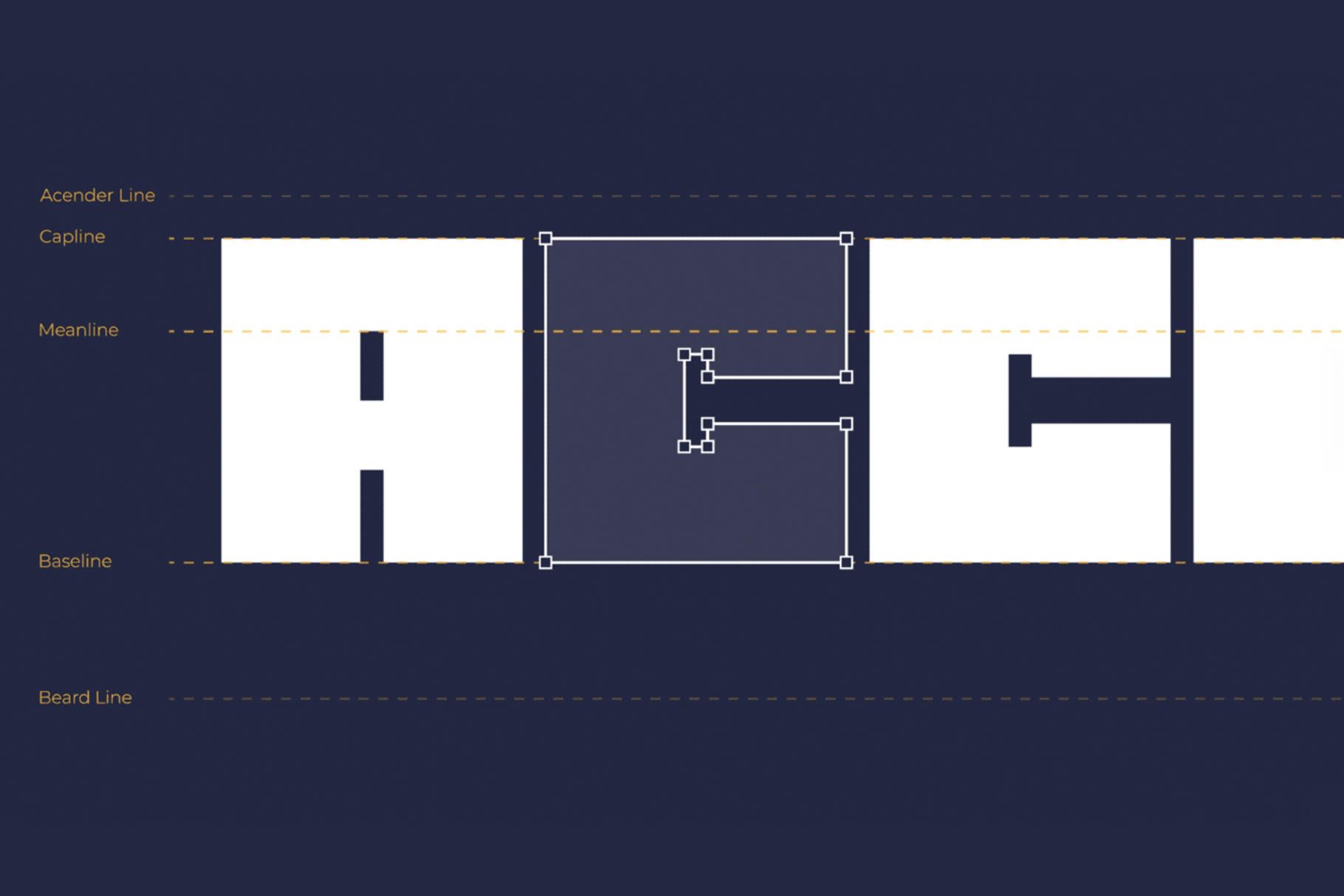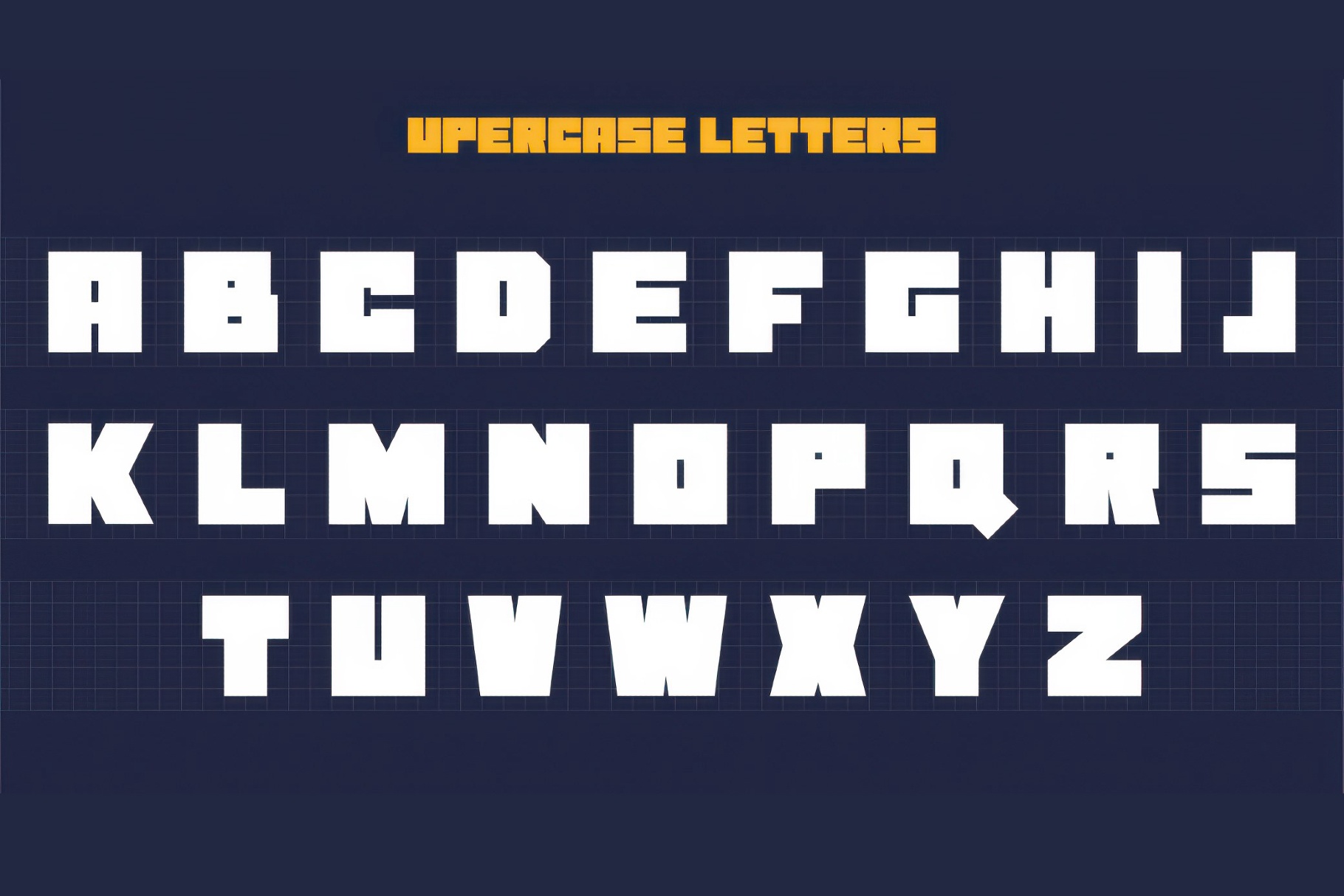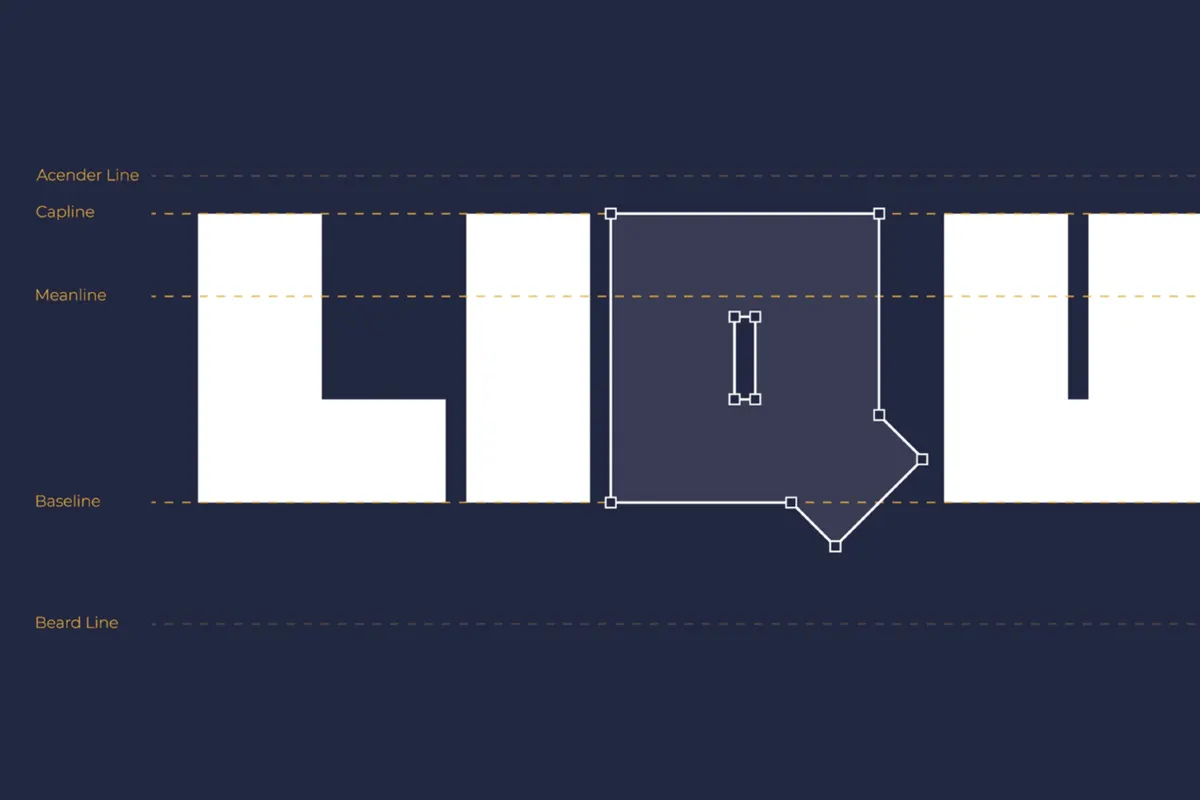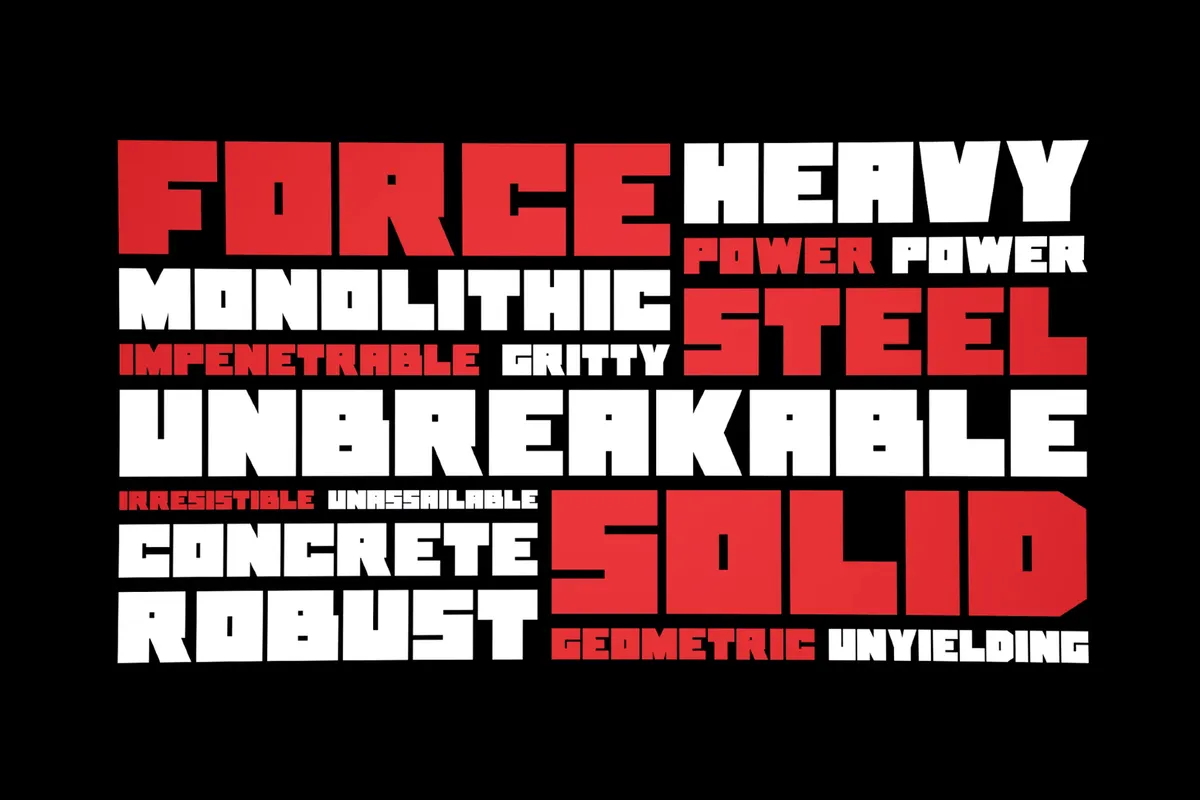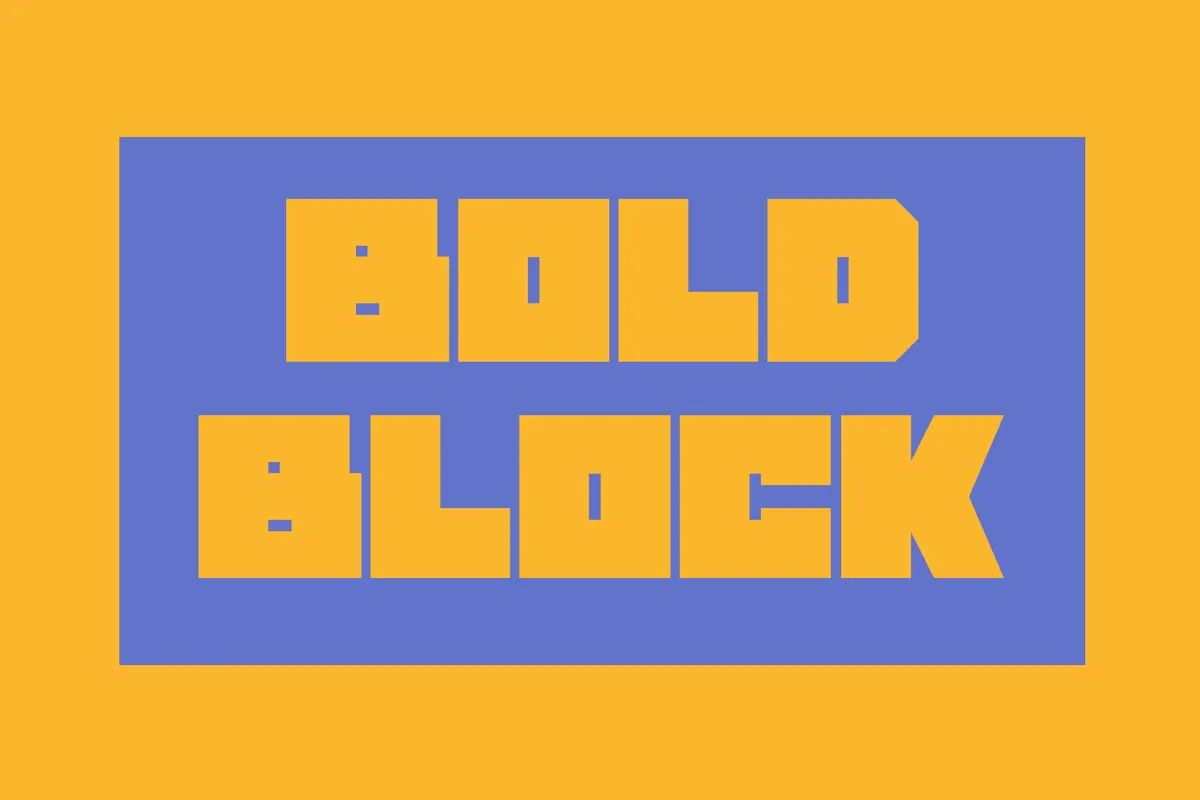
Bold Block Font
Bold Block
The Bold Block font is heavy and straight-sided, shaped to turn every word into a solid slab of geometry. The punch of vintage boxing posters and early arcade lettering is ideal for statement logos, posters, editorial headlines, sports or streetwear branding, packaging, signage, and high-impact social media graphics.